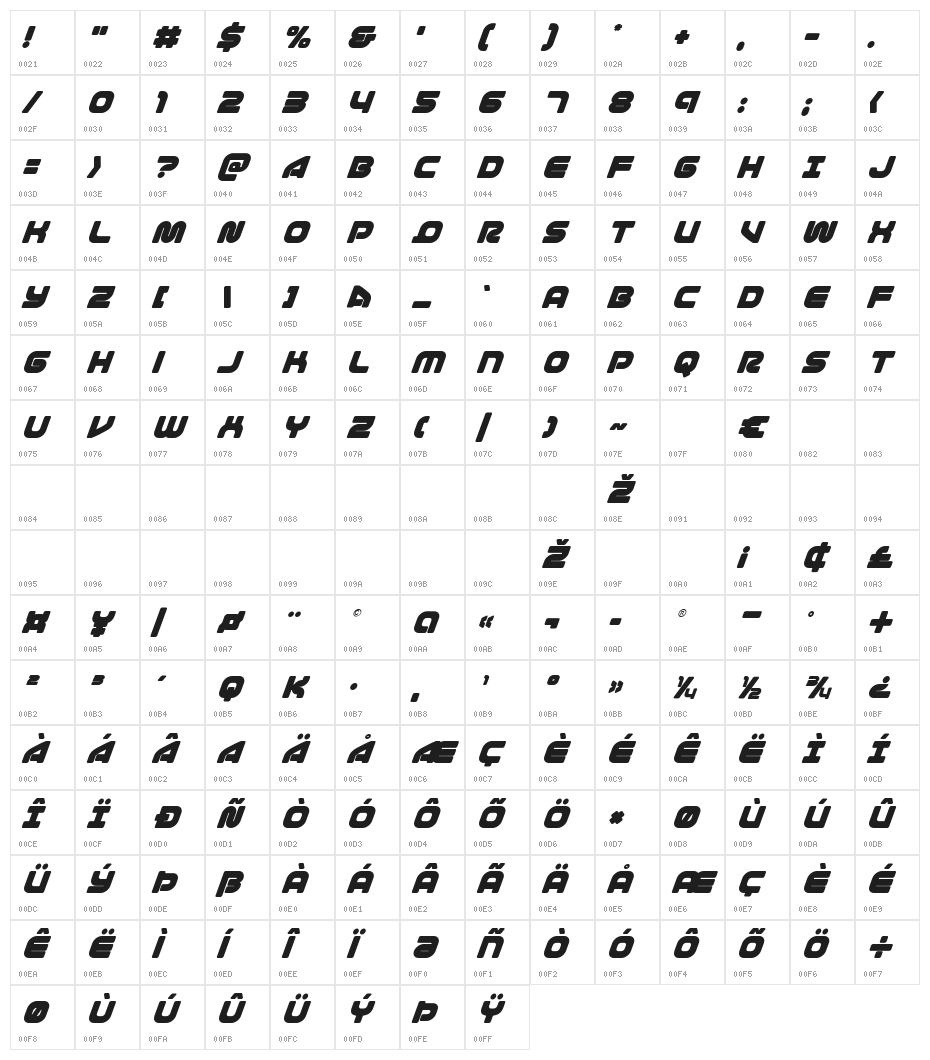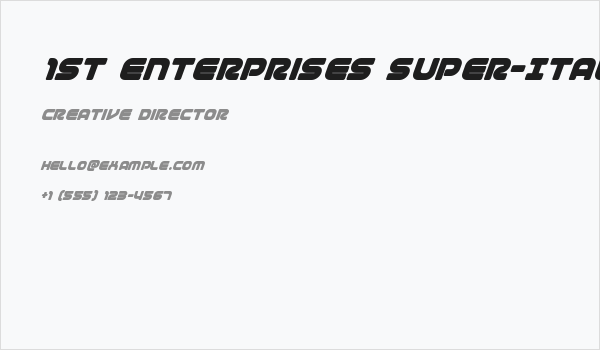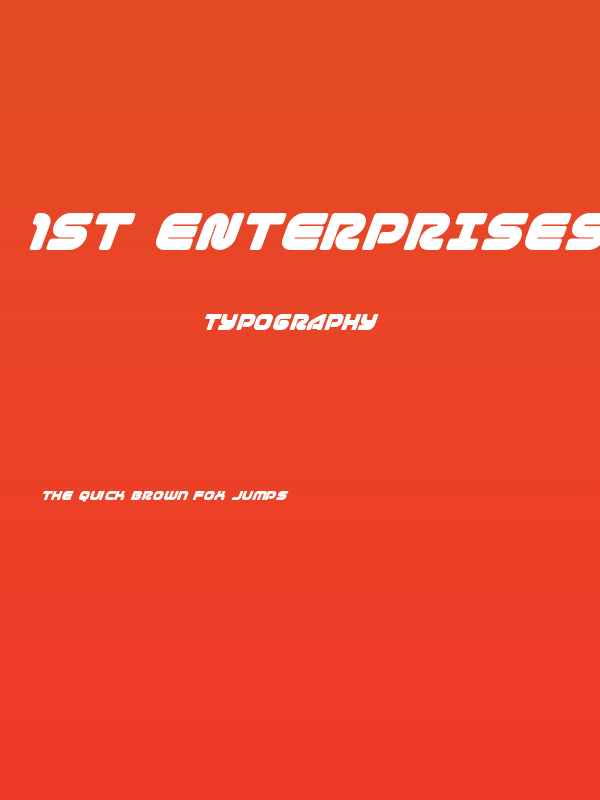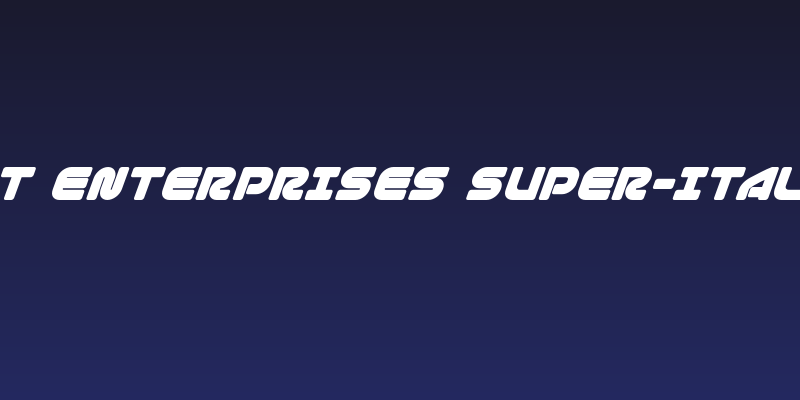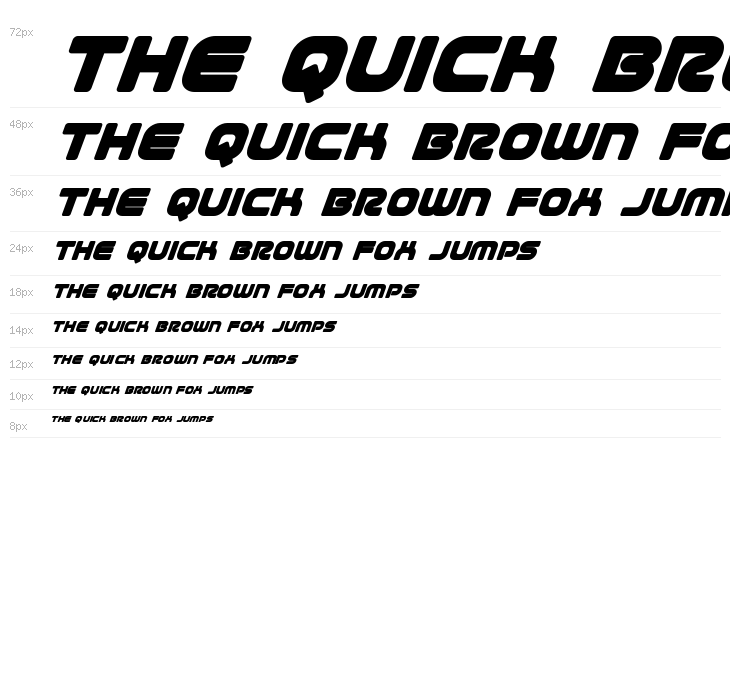
1st Enterprises Super-Italic Font
1st Enterprises Super-Italic Description
This font exhibits a bold and dynamic style, characterized by its italicized and slanted letterforms that convey a sense of motion and speed. The characters are robust and thick, with rounded edges that soften the overall appearance. The uppercase and lowercase letters maintain a consistent style, with the lowercase mirroring the uppercase in form and weight. The numerals are equally bold, ensuring readability and uniformity across different uses. Special characters are designed to match the energetic and modern aesthetic, making this font suitable for attention-grabbing designs.
| Proposed Projects | Ideal for branding, sports team logos, automotive designs, and dynamic advertising campaigns. |